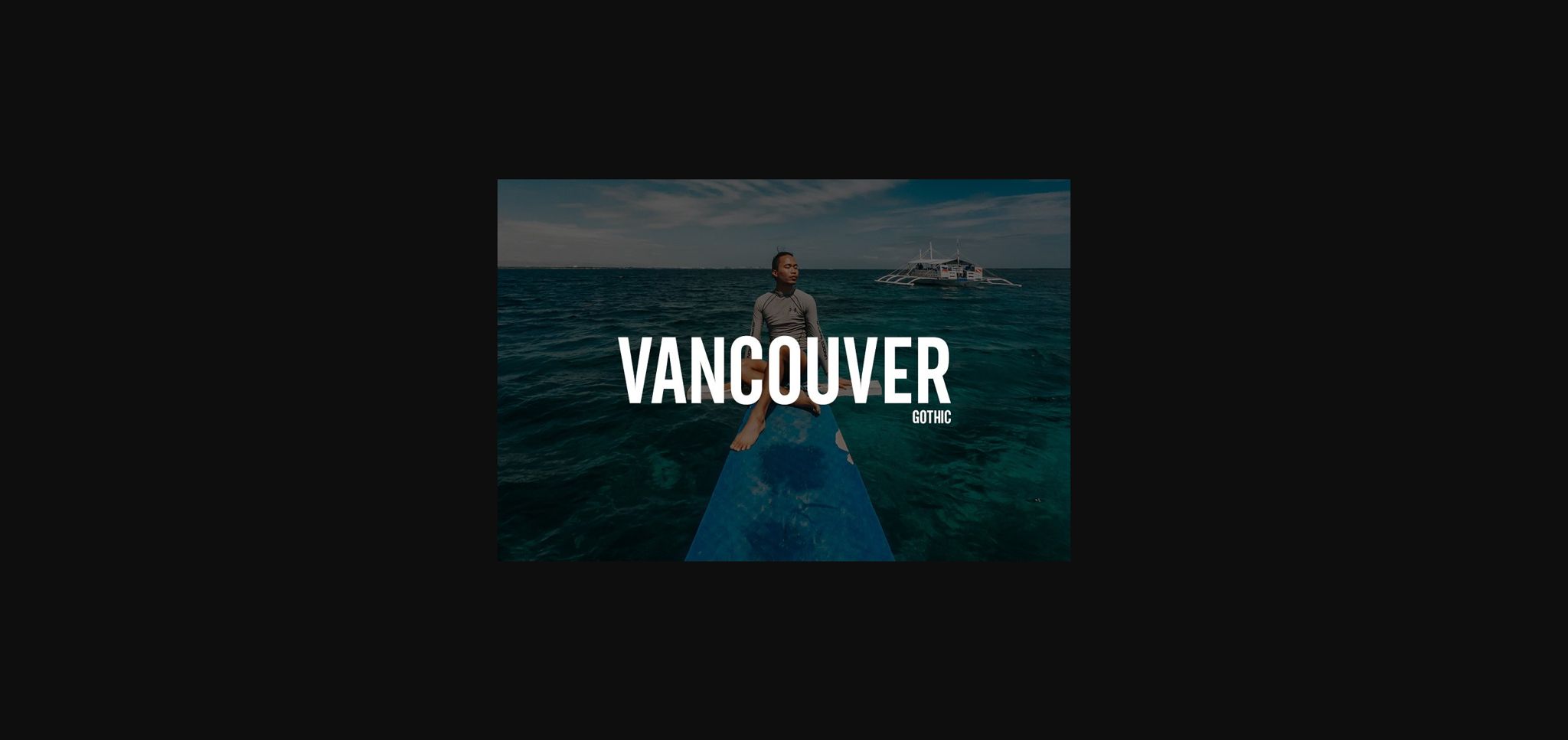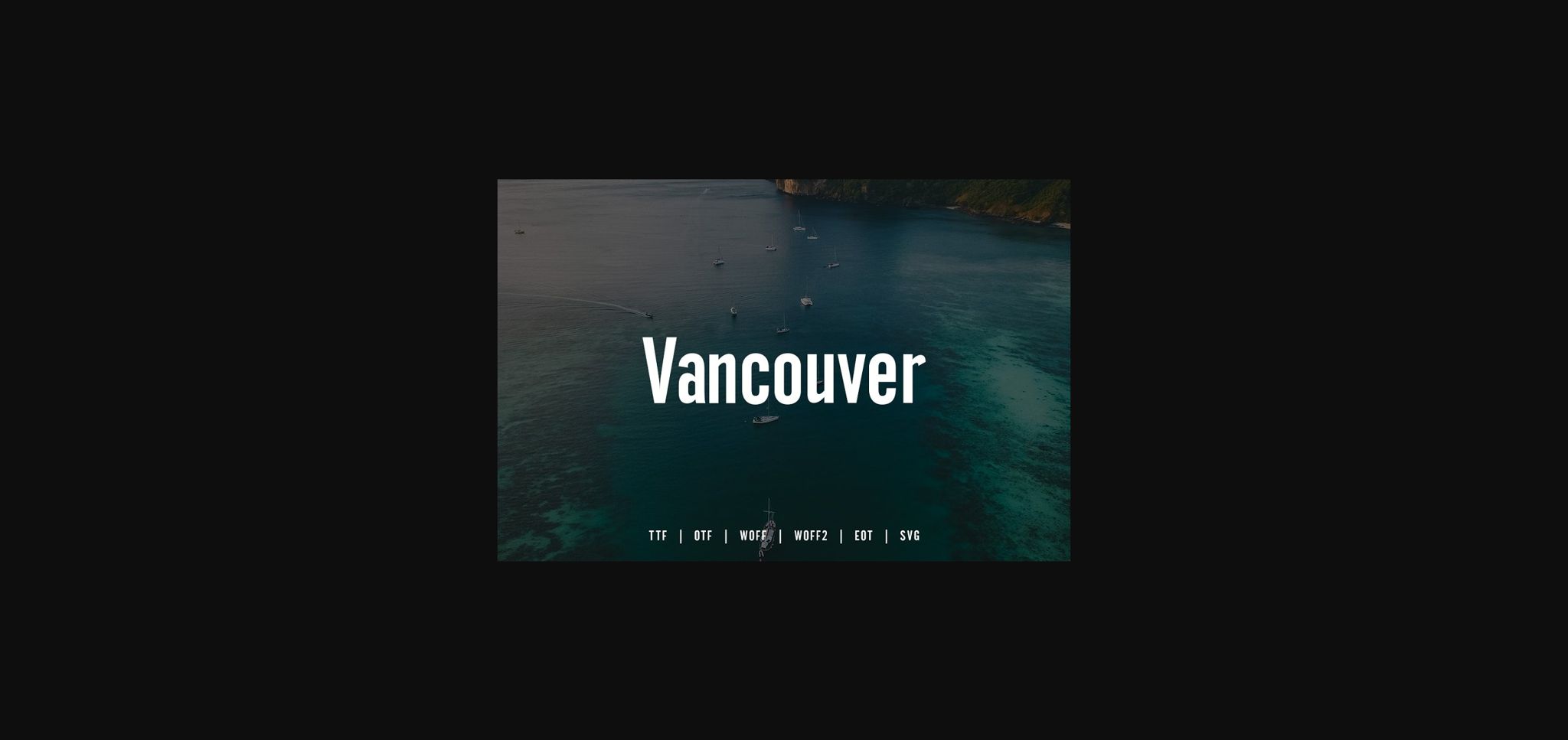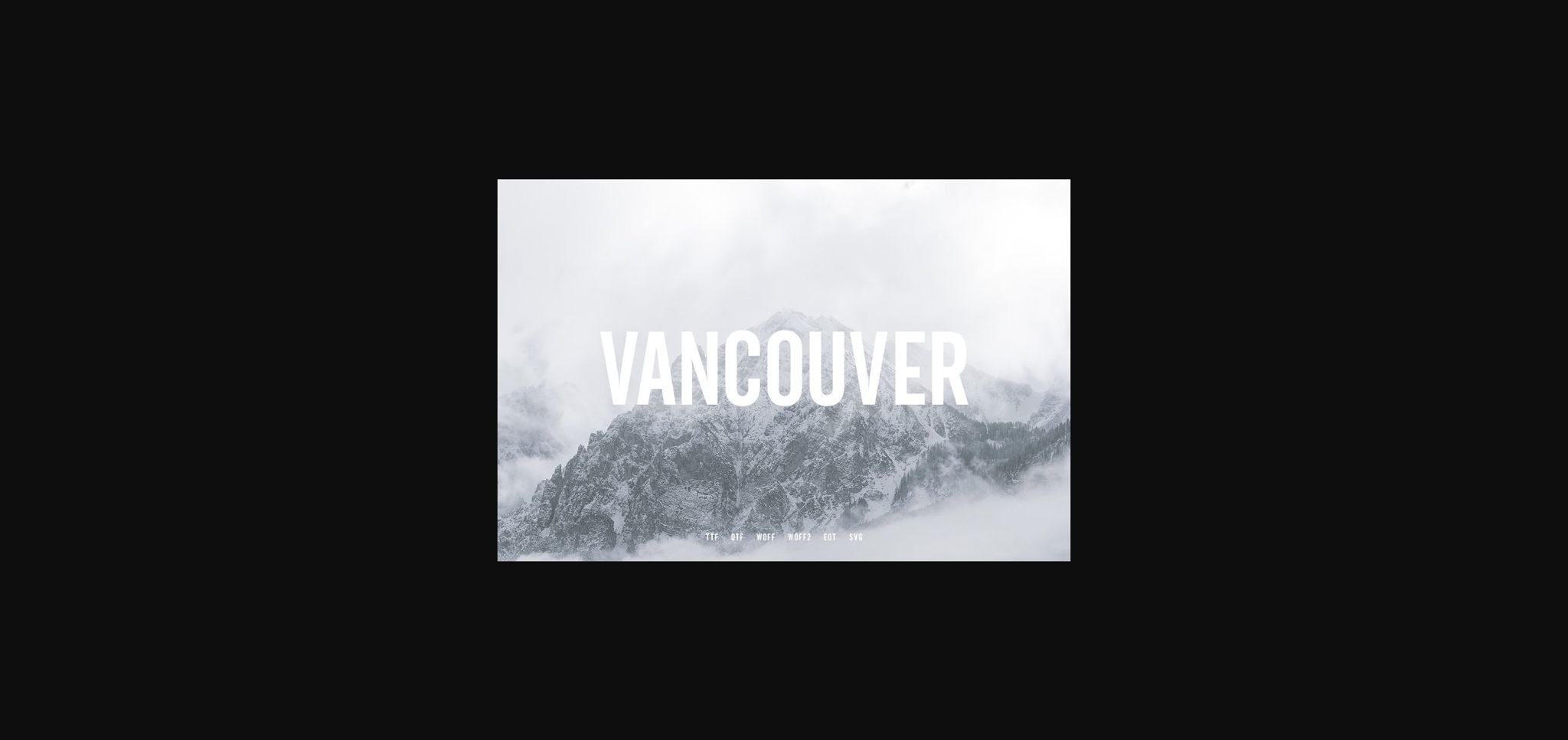
HomeSans Serif FontsVancouver Font Sans Serif Fonts Vancouver Font FacebookXPinterestWhatsApp 1 of 5 ... Vancouver Font Poster 2... Vancouver Font Poster 3... Vancouver Font Poster 4... Vancouver Font Poster 5... About Vancouver Font Vancouver is a simple and bold sans serif font. This beautiful and professional typeface is suitable for film posters, headlines, block letters, subheadings, logo designs, and so much more. DOWNLOAD NOW People also explored Talk to Me Font Snowdays Font Blue Highway Rianty Font Andasia Font Hallelujah Font Virginia Java Font Stronghold Font Kites String Font 309 0 TagsVancouver Font Previous articleObadiah Pro FontNext articleEkland Font LEAVE A REPLY Cancel reply Comment: Please enter your comment! Name:* Please enter your name here Email:* You have entered an incorrect email address! Please enter your email address here Website: Save my name, email, and website in this browser for the next time I comment. Personal Use Free Genres Personal Use Free Read more about this font Quickline Personal Use Free Read more about this font Deling Personal Use Free Read more about this font Septhine Personal Use Free Read more about this font BLOG Fonts That Capture the Spirit of New York City New York City is more than just a place—it’s an experience, a rhythm, a visual language... Using Fonts in Digital Marketing: Tips to Strengthen Your Brand Identity Top 10 Handwritten Fonts That Elevate Your Designs Best Fonts for T-Shirt Design – Top 2025 Picks